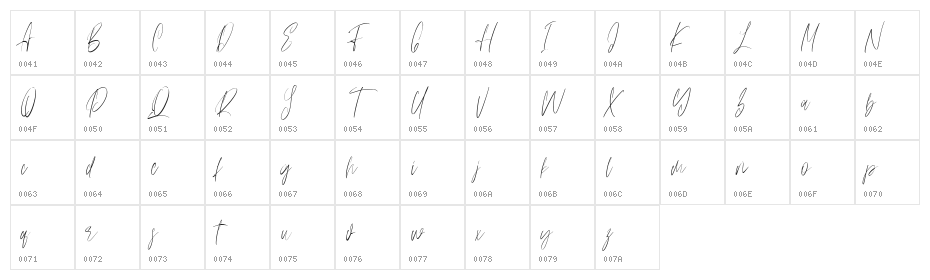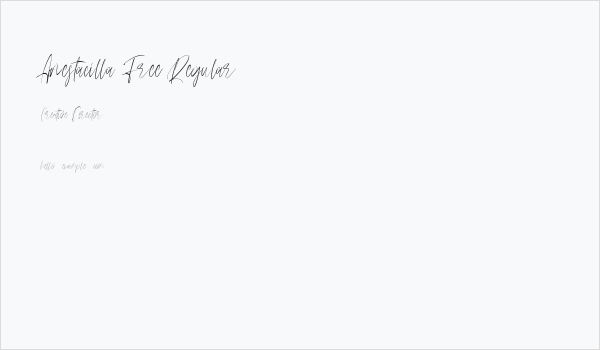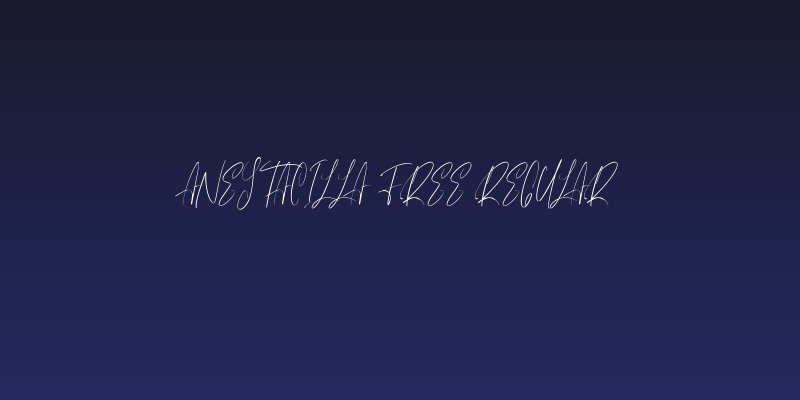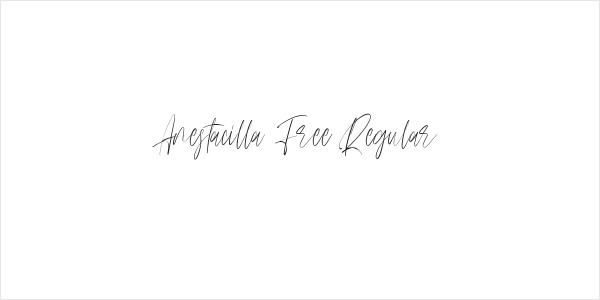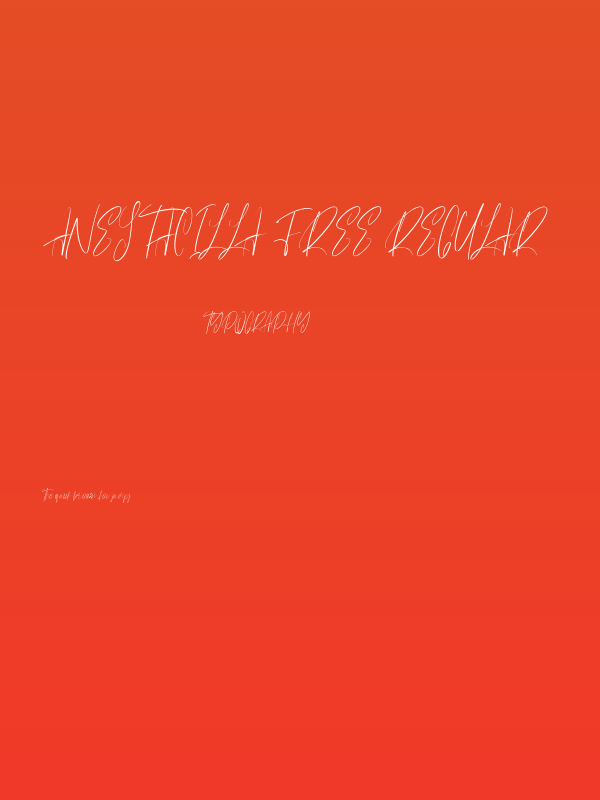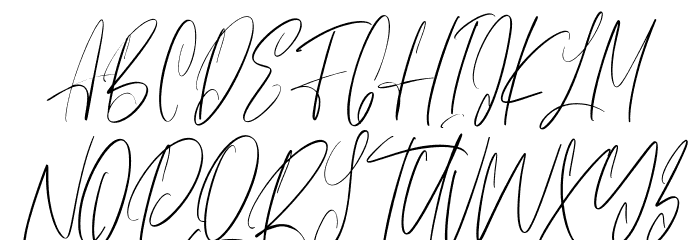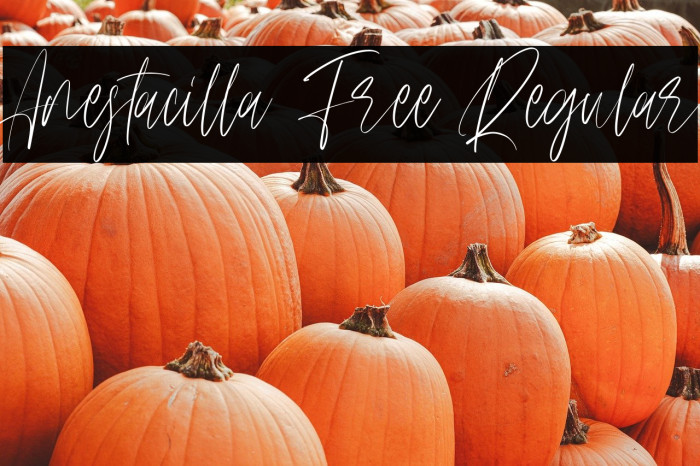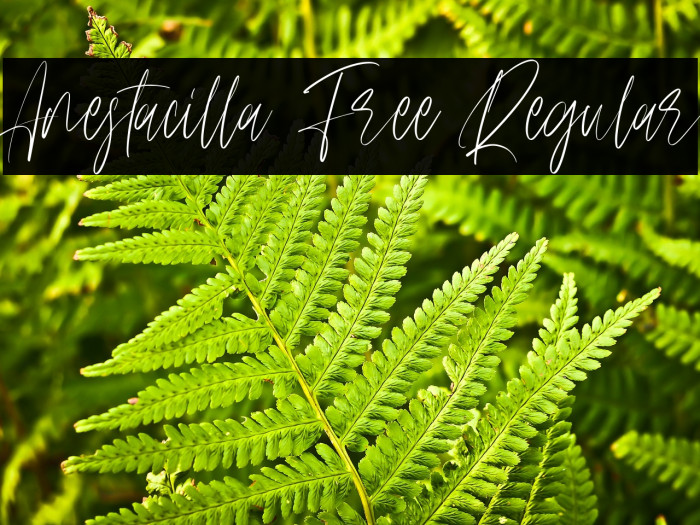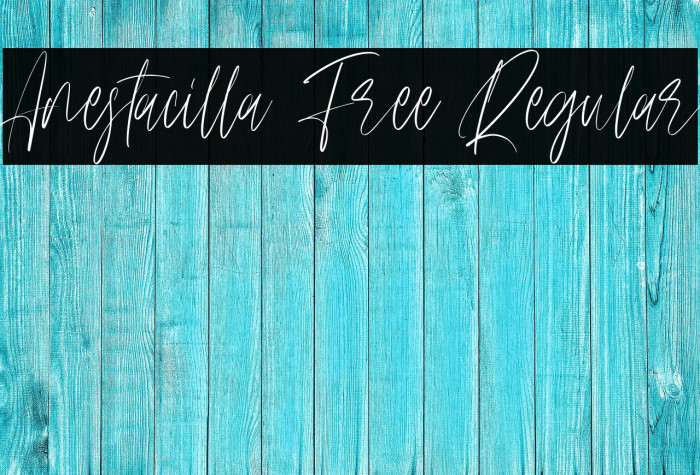
Anestacilla Free Regular Font
| Gesamtstil | Elegant, Artistic |
| Anwendungsfall | Logos, Invitations, Decorative text |
| Vorgeschlagene Projekte | Ideal for wedding invitations, greeting cards, branding, and any project that requires a touch of elegance and sophistication. |